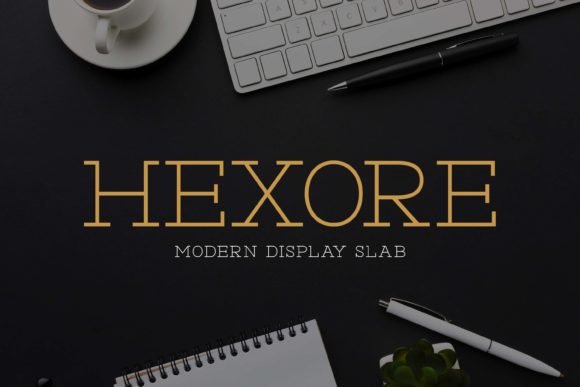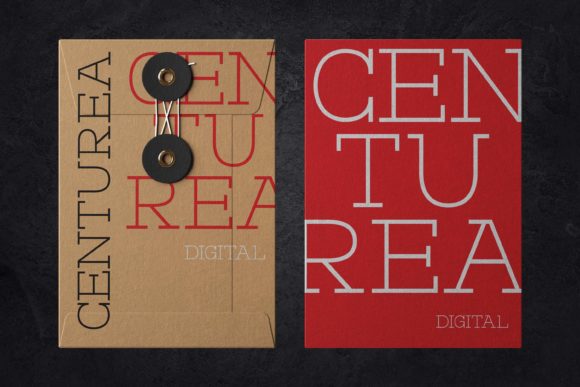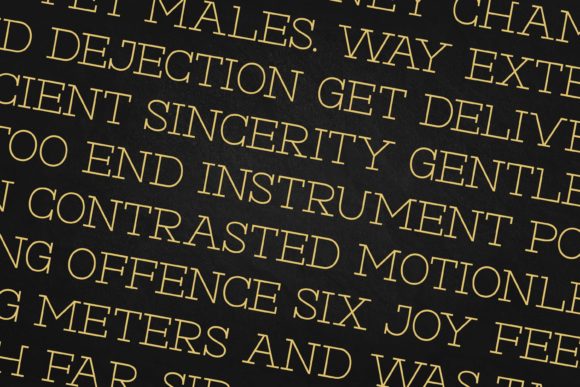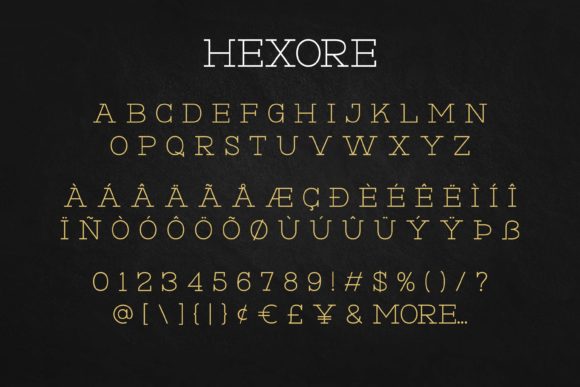
Hexore
Hexore: A Modern and Luxurious Slab Serif Font
Hexore is a distinctive slab serif font that combines modern design with a luxurious aesthetic. This typeface offers designers a sophisticated tool for creating impactful typography across a wide range of creative projects.
Key Features of Hexore
• Modern Design: Features a contemporary appearance that appeals to current design trends
• Luxurious Aesthetic: Offers an elegant and high-end look
• Slab Serif Structure: Incorporates the characteristic thick, rectangular serifs typical of slab serif fonts
• Versatile Application: Suitable for a variety of design ideas
• Clean Strokes: Presents a simple and stylish appearance[2]
Ideal Uses for Hexore
Hexore’s unique characteristics make it particularly well-suited for:
• Minimalist project designs[2]
• Logo design and branding
• High-end product packaging
• Luxury advertising and marketing materials
• Editorial layouts for upscale publications
When incorporating Hexore into your designs, consider the following tips:
• Use for headlines or short blocks of text to maximize its luxurious impact
• Experiment with different sizes to highlight the font’s modern details
• Pair with simpler sans-serif fonts for body text to create contrast
• Consider using it in projects where you want to convey sophistication and contemporary style
Technical Details
Hexore comes with standard glyphs, uppercase, and lowercase characters[2], providing designers with a comprehensive set of options for their typographic needs.
Hexore is an excellent choice for designers looking to add a modern and luxurious slab serif to their typographic toolkit. Its sophisticated design and versatility make it stand out in the world of typography. Whether you’re working on logo designs, creating layouts for high-end publications, or developing branding for luxury products, Hexore offers the perfect blend of modernity and elegance.
Add Hexore to your most creative ideas and watch how it brings them to life with its modern and luxurious character. From sophisticated branding to elegant editorial layouts, this font provides the tools to create impactful and memorable typography that stands out in various design contexts.